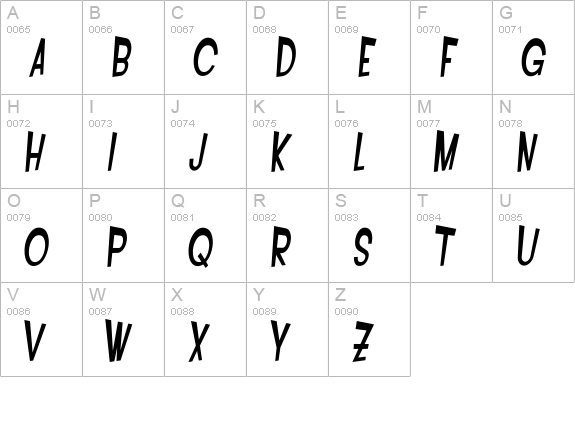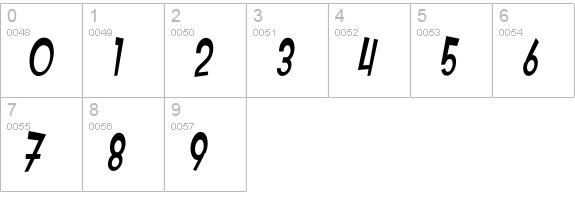
SF Intoxicated Blues Bold Oblique Font Details
SF Intoxicated Blues Bold Oblique is a strong, high-contrast, italic variant in the SF typeface family \xE2\x80\x94 well suited to headlines, attention-grabbing titles, and strong calls-to-action.
SF Intoxicated Blues Bold Oblique font is a captivating and mesmerizing typeface that beautifully combines the essence of intoxication with the soulful melancholy of blues music. Its bold and oblique design evokes a sense of movement and energy, as if the letters themselves are swaying to the rhythm of a smoky jazz club. This font is perfect for adding a touch of sophistication and intrigue to any project. Whether you're designing a poster for a music festival, creating album artwork, or crafting a logo for a vintage-inspired brand, SF Intoxicated Blues Bold Oblique font will effortlessly elevate your design to new heights. The unique and distinctive nature of this font makes it stand out from the crowd, giving your work a memorable and professional edge. Its bold strokes and slanted angles create a sense of drama and intensity, making it ideal for capturing attention and leaving a lasting impression. The best part is that SF Intoxicated Blues Bold Oblique font is freely available to download at FontsMarket.com. This means that you can easily access and use this beautiful font without any restrictions. Whether you're a professional designer or an enthusiast looking to add some flair to your personal projects, this font is a must-have in your collection. So, why wait? Download SF Intoxicated Blues Bold Oblique font today and let its intoxicating charm and bluesy vibes infuse your designs with a touch of magic. Unleash your creativity and watch as your work comes to life with this captivating and freely available font.